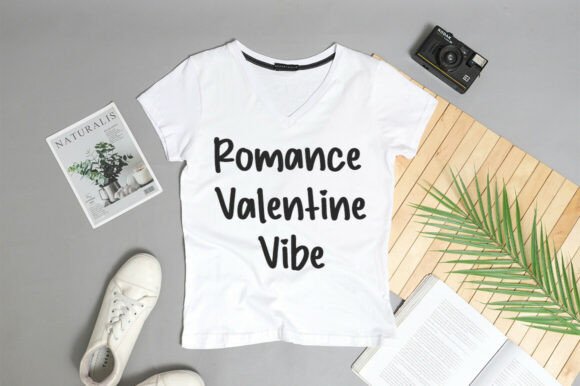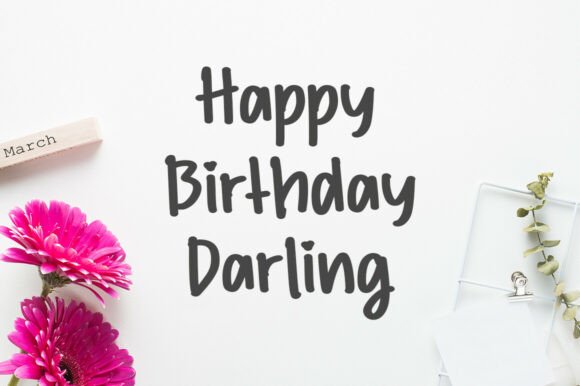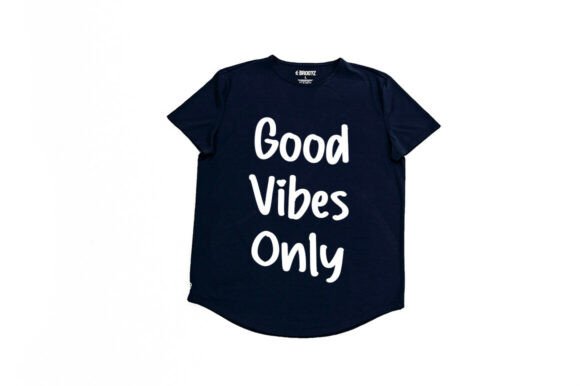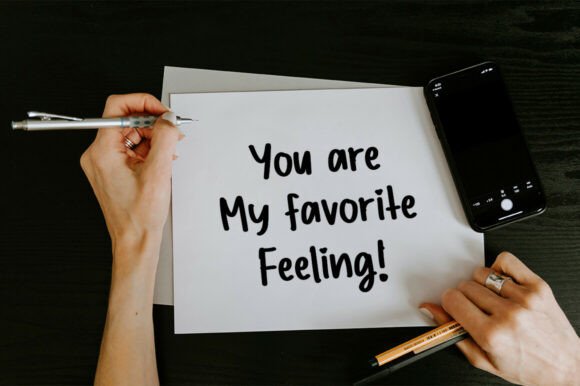
The Perfect Font to Spread the Love: Awesome Heart Font
Have you ever been working on a design project and stumbled upon that one font that just makes everything click? For many designers, it’s that moment when the entire concept comes together, and the message shines through. It’s like finding the perfect melody to match your brand’s personality. For us, that moment came when we discovered the Awesome Heart Font – a typeface that embodies the spirit of confidence, joy, and playfulness.
This chunky, marker-style font is designed to make a statement. Its bold strokes and tactile look are reminiscent of hand-drawn signage, perfect for grabbing attention and conveying a sense of excitement. Whether you’re creating bold apparel designs, eye-catching stickers, or impactful headlines, the Awesome Heart Font is sure to elevate your message and leave a lasting impression.
Awesome Heart Font Key Features
- Font Style: A modern sans-serif font with a touch of elegance, perfect for creating a unique and memorable design.
- Character Count: The font contains 1000+ glyphs, including a wide range of characters, punctuation, and symbols.
- Unique Characteristic: The font features a unique heart-shaped design element, adding a touch of whimsy and personality to any design.
Awesome Heart Font Review
First off, I have to say that Awesome Heart Font is a fun and quirky addition to any design project ✨. The font’s unique, hand-drawn style gives it a charming, personal feel that’s perfect for adding a touch of whimsy to text-based designs.
Here are some of the things that I really like about Awesome Heart Font:
- It’s super versatile – I’ve used it for everything from logos to social media graphics to wedding invitations ✨
- The font’s irregular shape and lines add a lot of visual interest to text, making it stand out from more traditional fonts ✨
- It’s relatively easy to read, even at smaller sizes, which is a big plus for designers who need to use the font in a variety of contexts ✨
Of course, no font is perfect, and Awesome Heart Font has a few limitations:
- It can be a bit difficult to use in smaller sizes, especially for body text – the font’s irregular shape can make it harder to read at smaller sizes ⚠️
- The font may not be suitable for formal or professional designs – it’s a bit too playful and whimsical for that kind of use ⚠️
- It’s not as customizable as some other fonts, which can make it tricky to adjust the font’s size, color, and other attributes ⚠️
Overall, I think Awesome Heart Font is a great addition to any designer’s toolkit. While it may have a few limitations, its unique style and versatility make it a great choice for a wide range of design projects.
Tips for Getting the Most Out of Awesome Heart Font
Use Awesome Heart Font for romantic, playful, or whimsical designs.
Combine Awesome Heart Font with other fonts for a unique and eye-catching look.
Experiment with different font sizes and styles to add visual interest to your design.
Use Awesome Heart Font for:
Valentine’s Day and romantic gift designs
Children’s book illustrations and educational materials
Alternatives to Awesome Heart Font for Designers
Great Vibes is a beautiful, modern script font perfect for creating a fun and playful atmosphere. It’s ideal for use in headings, titles, and any design where a friendly, approachable tone is desired. Compared to Awesome Heart Font, Great Vibes has a more polished and refined look, making it suitable for a wider range of design applications.